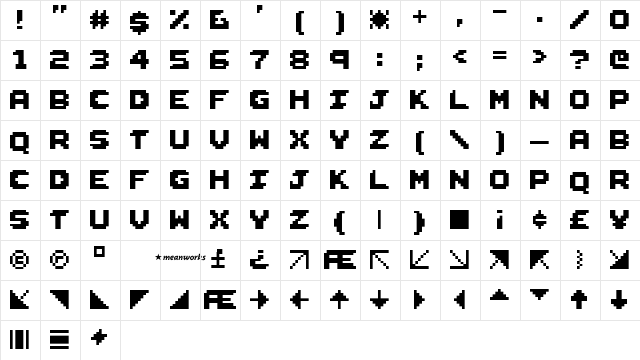
Erebus Regular
Design Context for Erebus Typeface
Erebus is a composed and adaptable typeface that performs quietly and consistently across a wide range of design contexts.